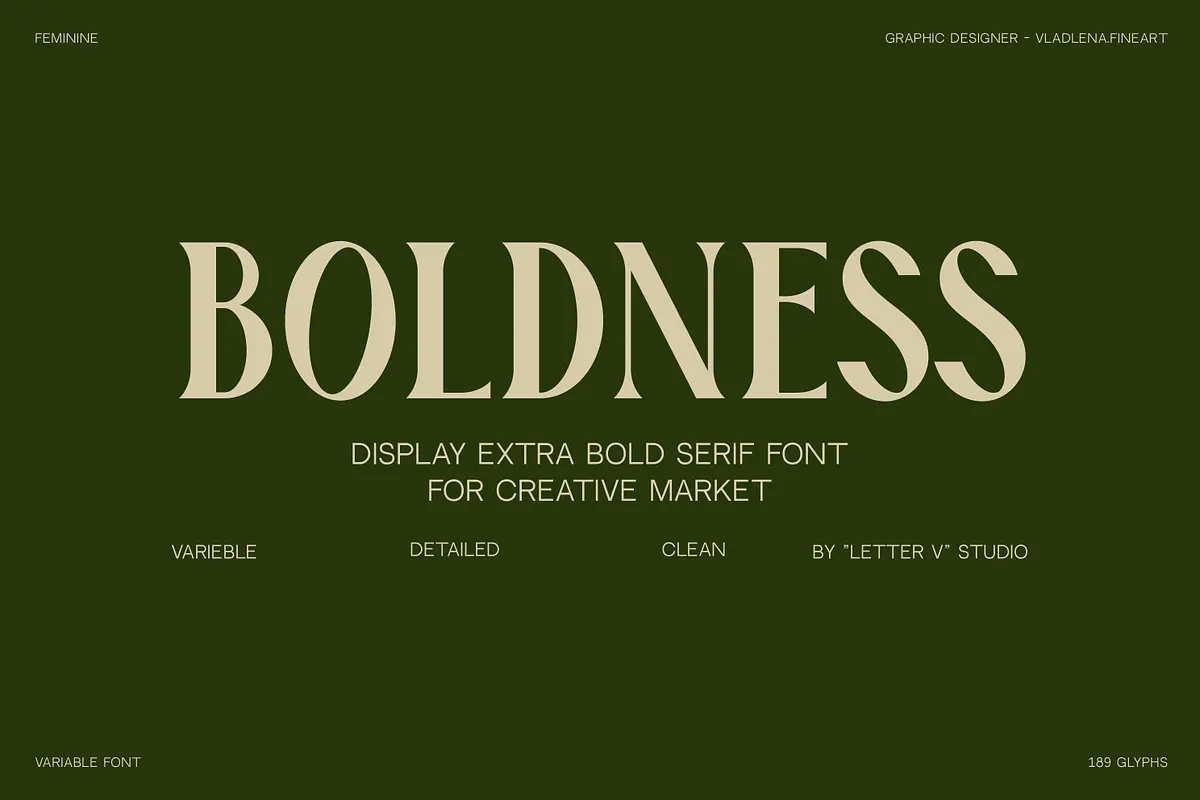
Boldness font / display serif font Free Download
Boldness Font / Display Serif Font Free Download
Please note, you must purchase this font for commercial use. However, you can easily download Boldness Font / Display Serif Font Free Download for personal use and testing purposes. Boldness Font is a strong, attention-grabbing display serif typeface designed for projects that require a bold and impactful statement. Perfect for headlines, posters, logos, and branding, this font features thick, prominent serifs and a modern twist on classic serif designs. Whether you're working on a powerful advertising campaign, a dramatic event poster, or a bold logo, Boldness Font / Display Serif Font Free Download ensures your text stands out with confidence and clarity. Download Boldness Font / Display Serif Font Free Download today and explore its potential before opting for a commercial license.